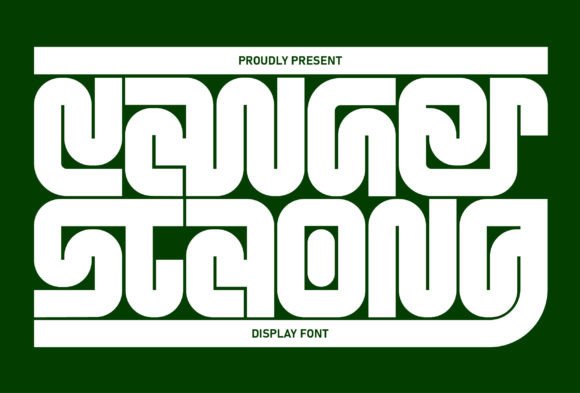
In the realm of visual artistry, where inspiration dances on the canvas of creativity, there exists a font that embodies the essence of uniqueness and imagination - the Canger Staong font.
Crafted with meticulous attention to detail, this awe-inspiring font boasts curved joints that resemble pipes, creating a mesmerizing visual symphony that captivates the eyes and ignites the imagination.
Unleash your creativity with Canger Staong, a font that knows no bounds. Whether you're designing eye-catching stickers, vibrant posters, captivating covers, or embarking on groundbreaking typography projects, Canger Staong will elevate your designs to new heights of artistry.
Beyond its versatility, Canger Staong exhibits remarkable adaptability, seamlessly harmonizing with a myriad of digital media. Transform your digital creations into masterpieces, be it stunning social media graphics, captivating e-book covers, or unforgettable presentations.
The Canger Staong font does not merely reside on your computer; it becomes an extension of your creative spirit, empowering you to weave magical tales and paint vivid pictures with each stroke of your keyboard.